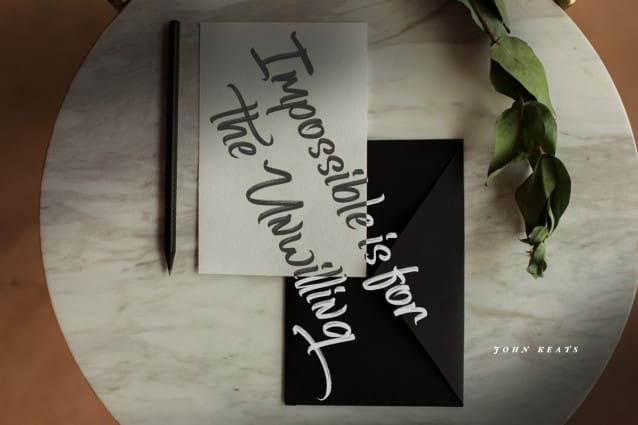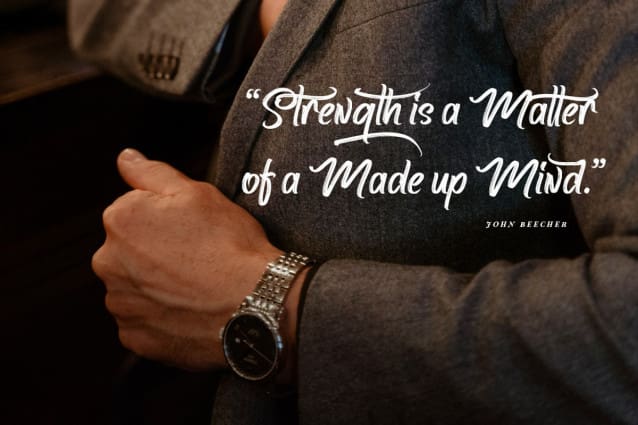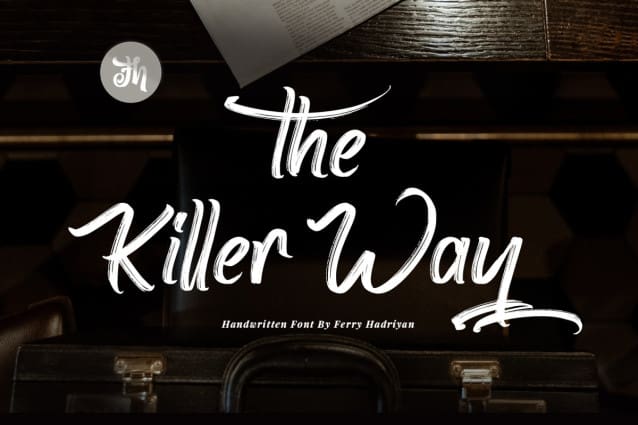
The Killer Way Font
The Killer Way Font is script font with handwritten vintage brush style, with OpenType feature include of the font. Suitable for design, element design, event, logo, and awesome work, etc…